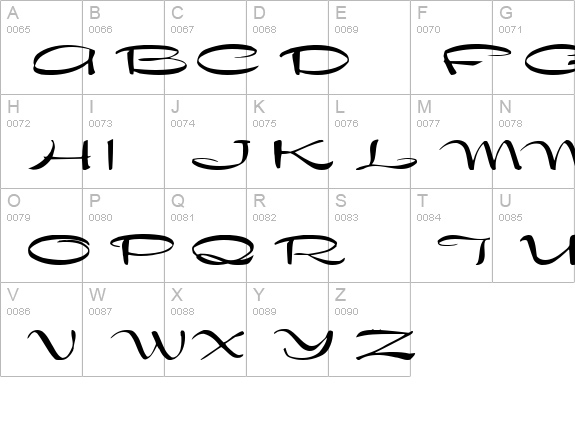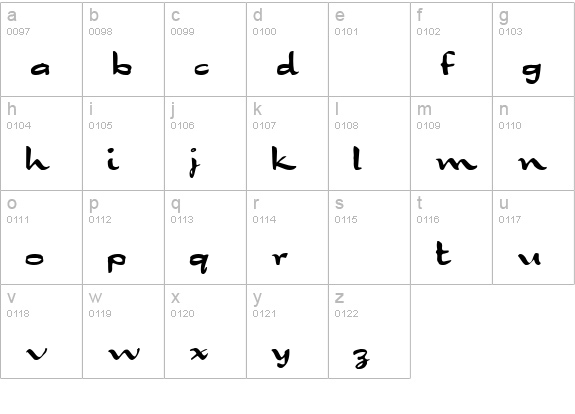
Drakkar Font Details
Drakkar font is a bold and striking typeface designed for those seeking a powerful and contemporary look in their designs. With its sharp edges and unique character shapes, Drakkar exudes strength and sophistication. This versatile font is perfect for branding, headlines, posters, and more. Best of all, Drakkar font is completely free to use and is available to download at FontsMarket.com. Whether you're a designer looking to add a touch of edge to your projects or a business owner in need of a strong visual identity, Drakkar font is the perfect choice. Download it today and make a bold statement with your designs.